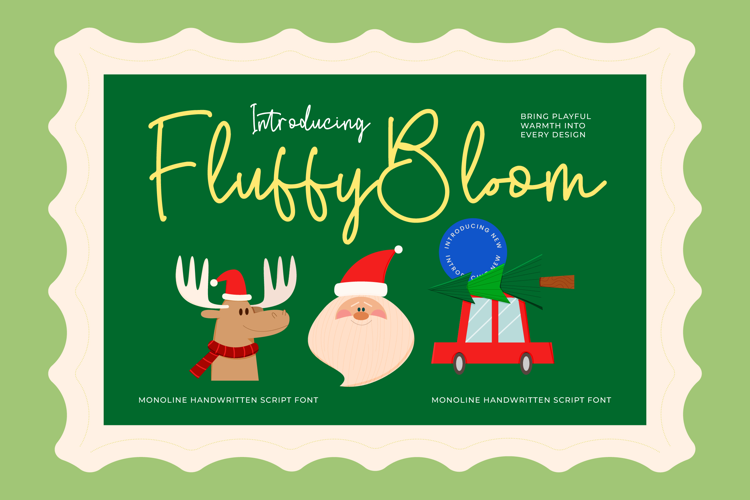
Fluffy Bloom
Fluffy Bloom – Whimsical Handwritten Font for Joyful Designs! 🌸🚗
Meet Fluffy Bloom, a playful handwritten script font with bouncy, fluffy strokes evoking blooming flowers and fun vibes. Showcases vibrant uppercase/lowercase, full numbers, symbols, and alternates—PUA encoded for easy swashes in Photoshop, Illustrator, or Cricut. TTF/OTF ready for print/digital magic.
Perfect For:
• Kids' invites & storybooks
• Playful logos & packaging
• Social media quotes & merch
• Whimsical holiday/spring crafts